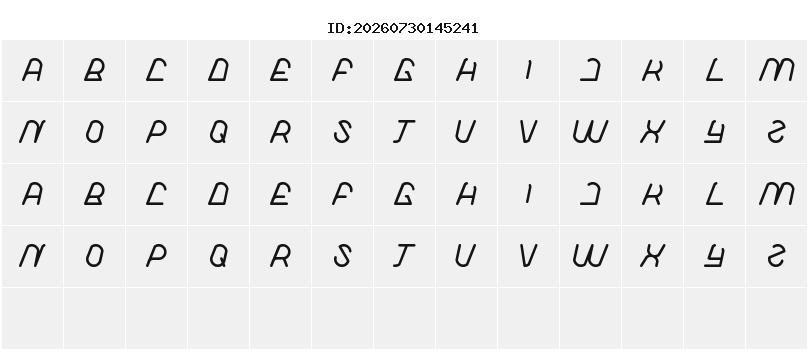
• Font Name: like this
About like this.ttf
like this.ttf is a modern, elegant sans-serif font designed for ultimate readability and visual harmony. Perfect for branding, headlines, web design, and print materials.